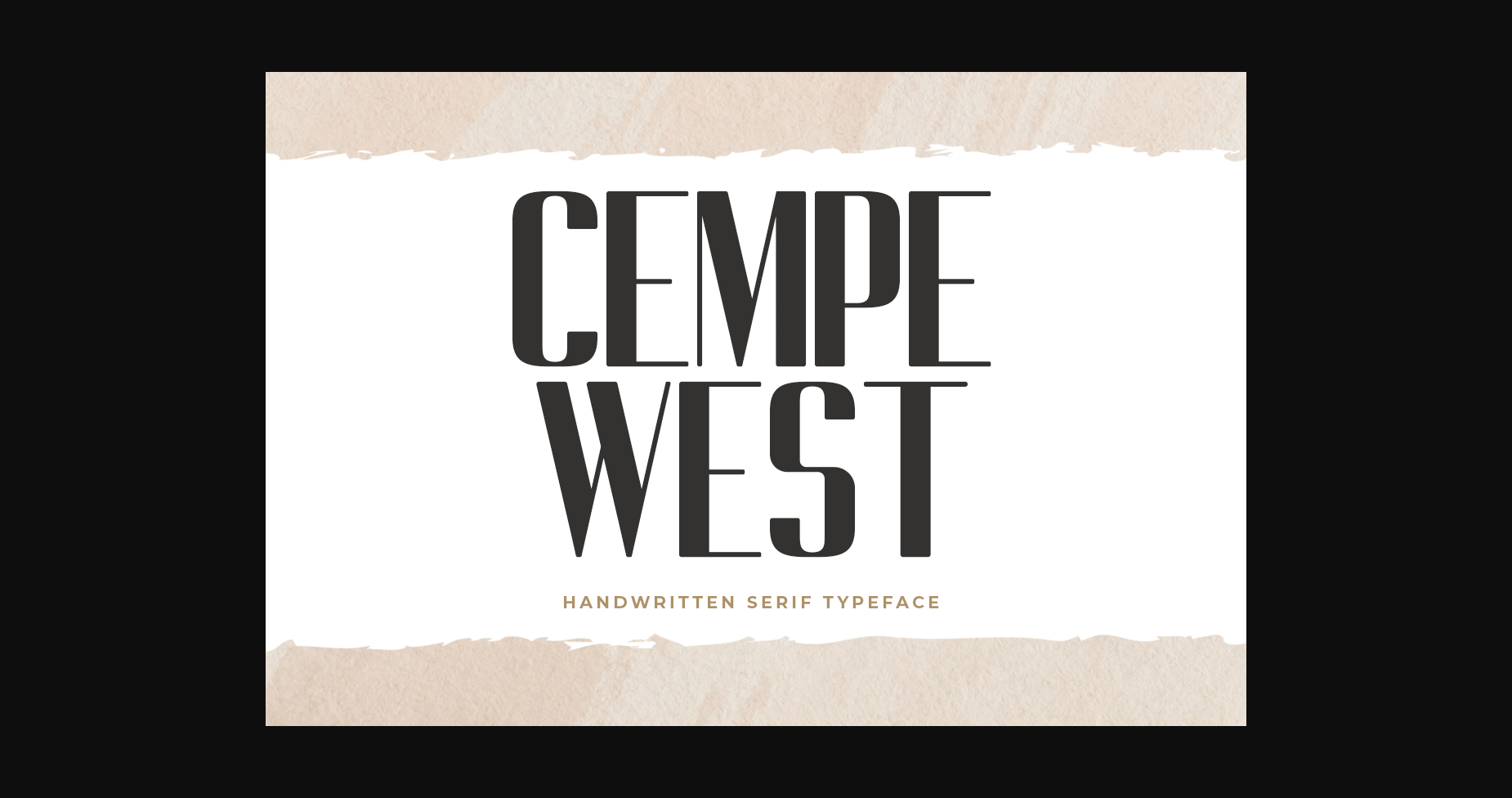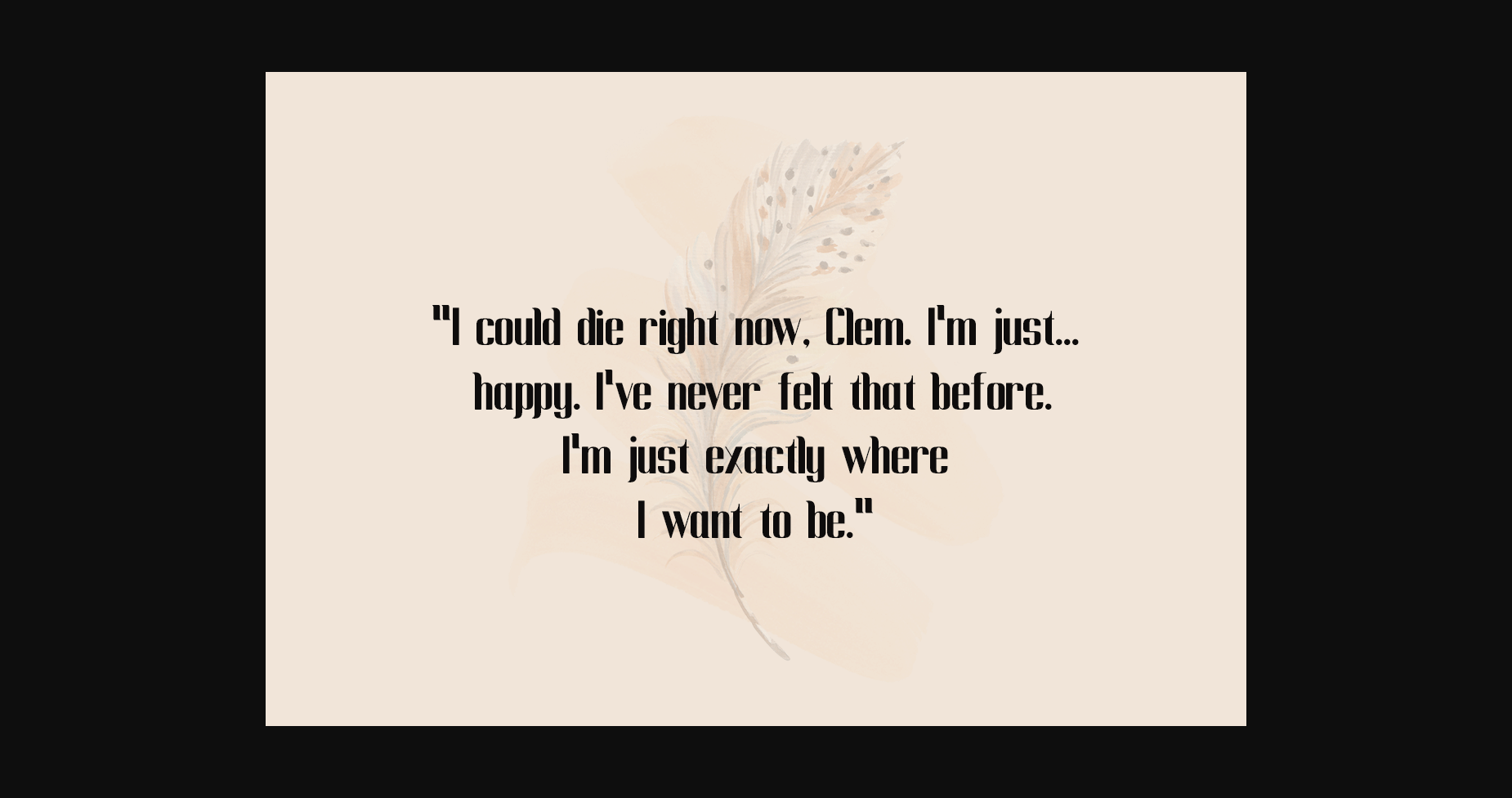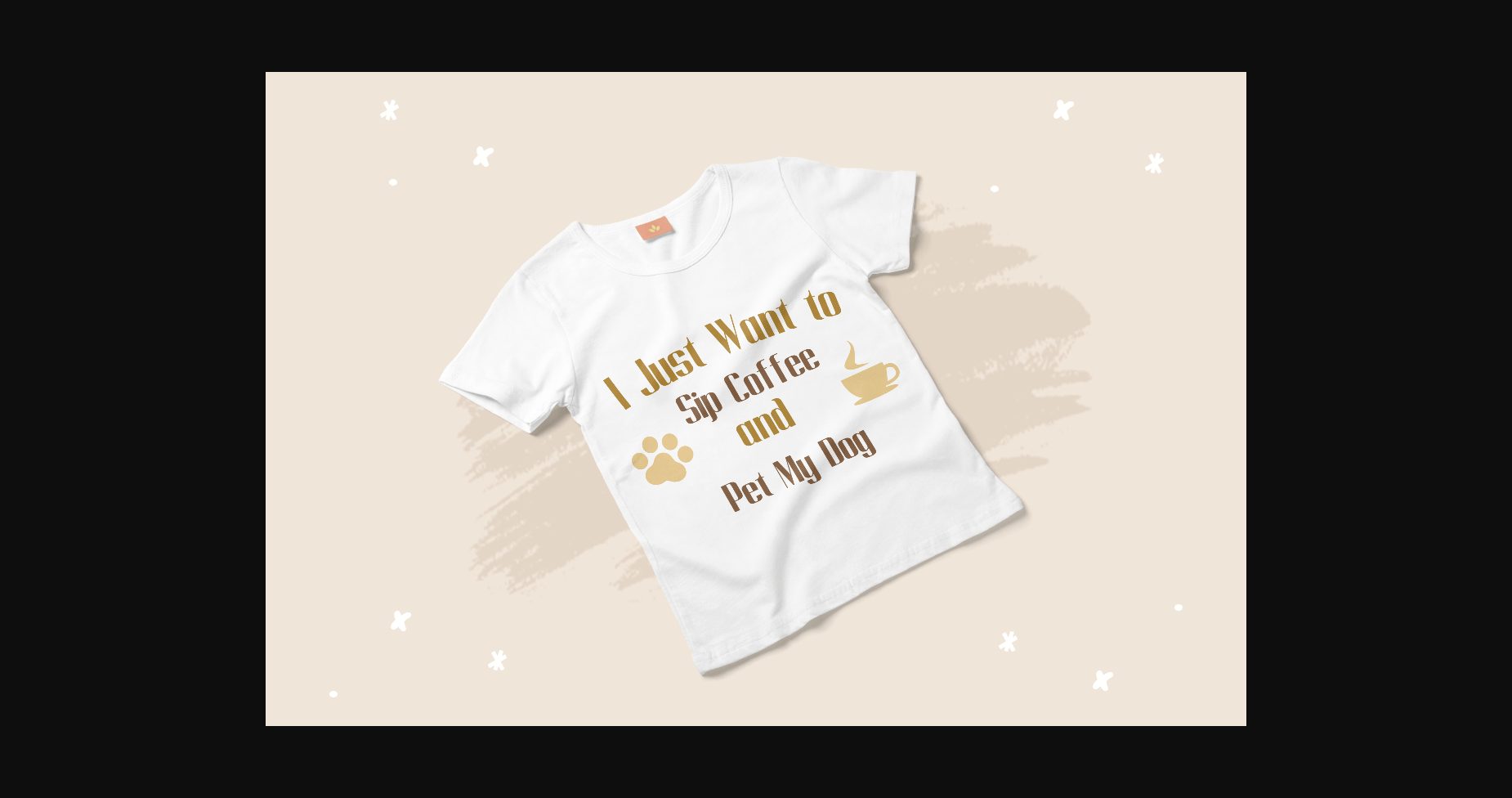
About Cempe West Font
Cempe West is a styled sans serif font that feels equally charming and delicate. Cempe West is perfectly suited for all quotes, greeting card, business card, poster, wedding invitations, logos, cover magazine, t-shirt design material and much more! Its alternate and ligature look will add a personal and realistic feel to your designs. This font is PUA encoded which means you can access all of the glyphs and swashes with ease.